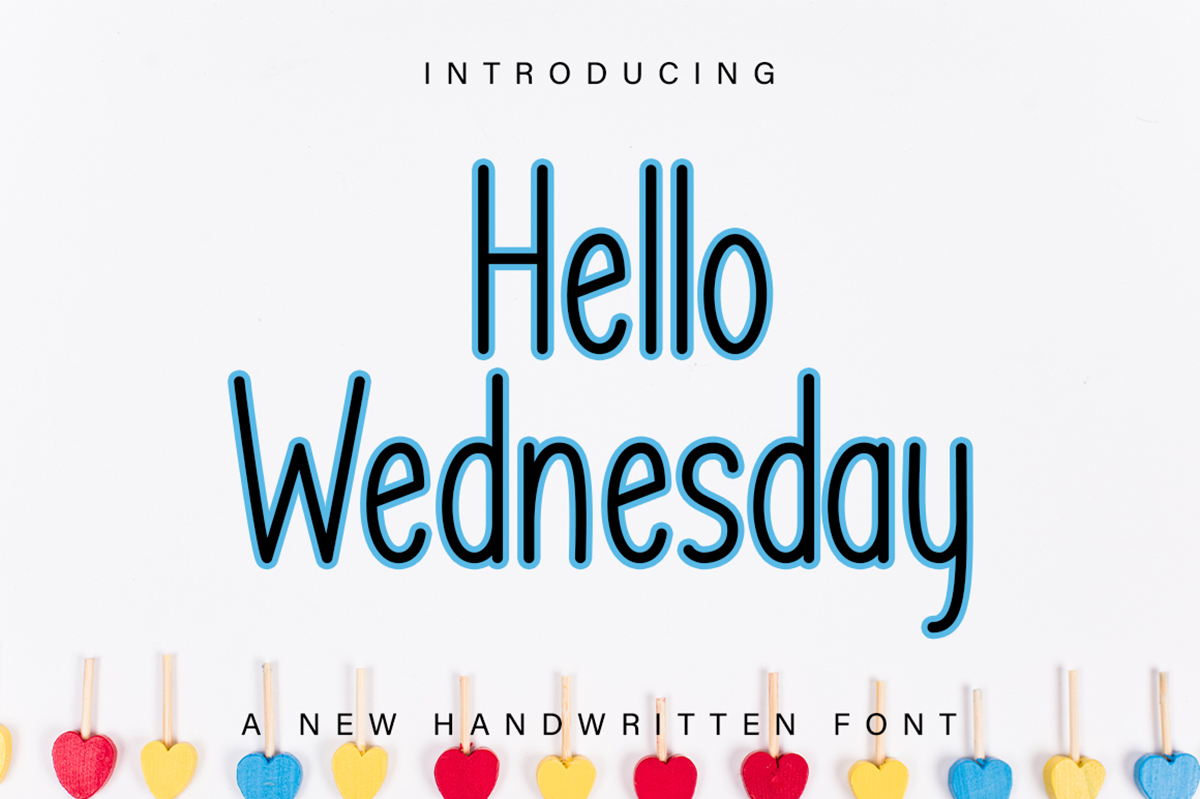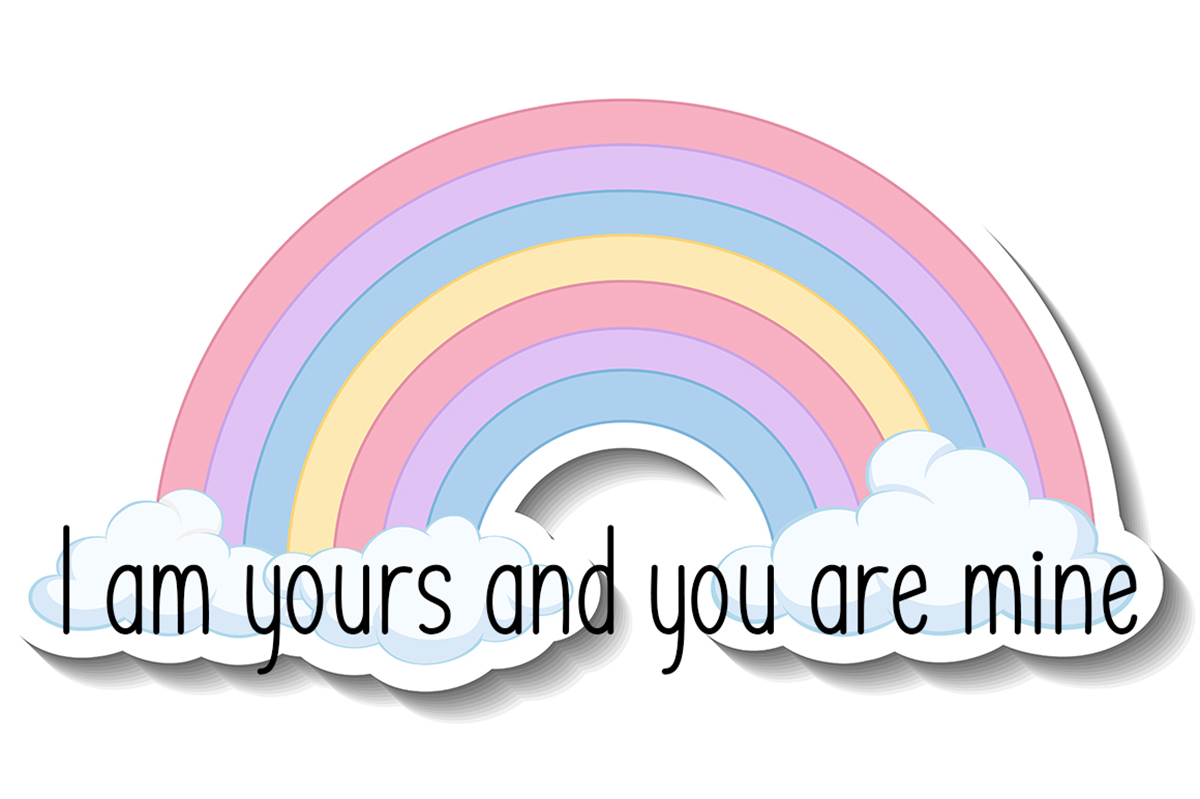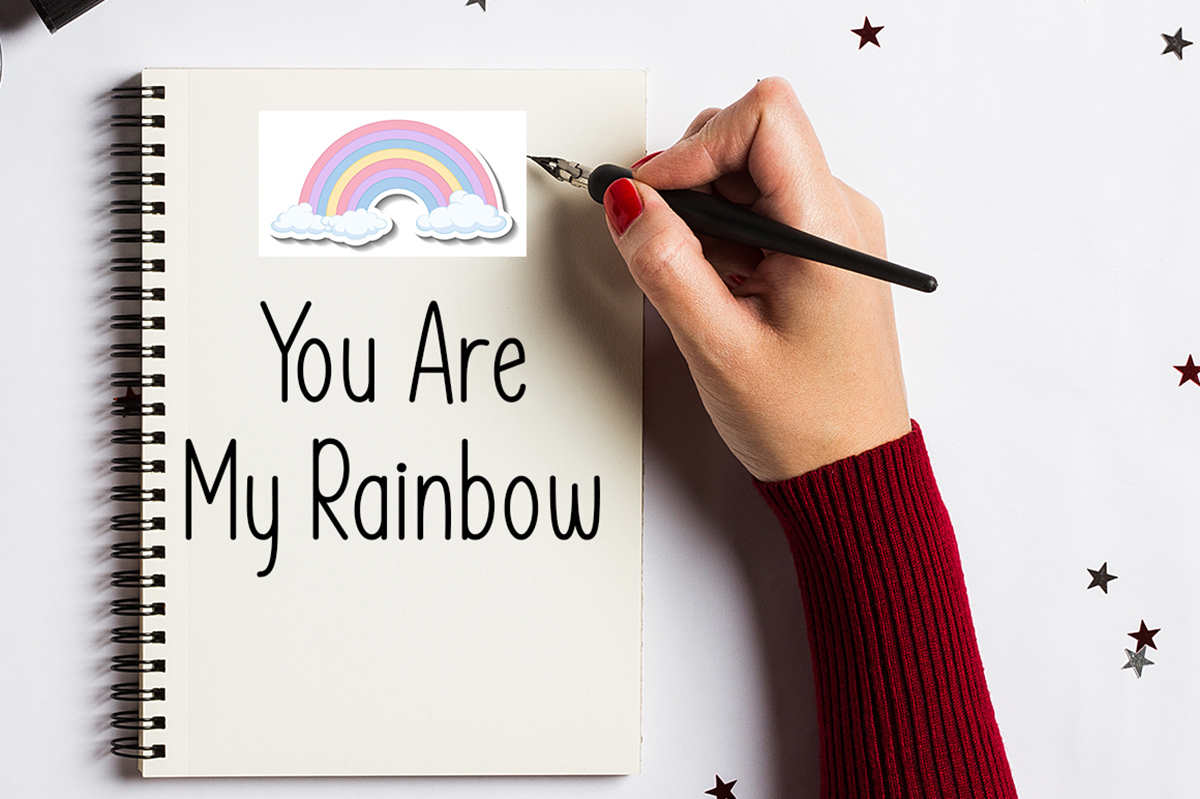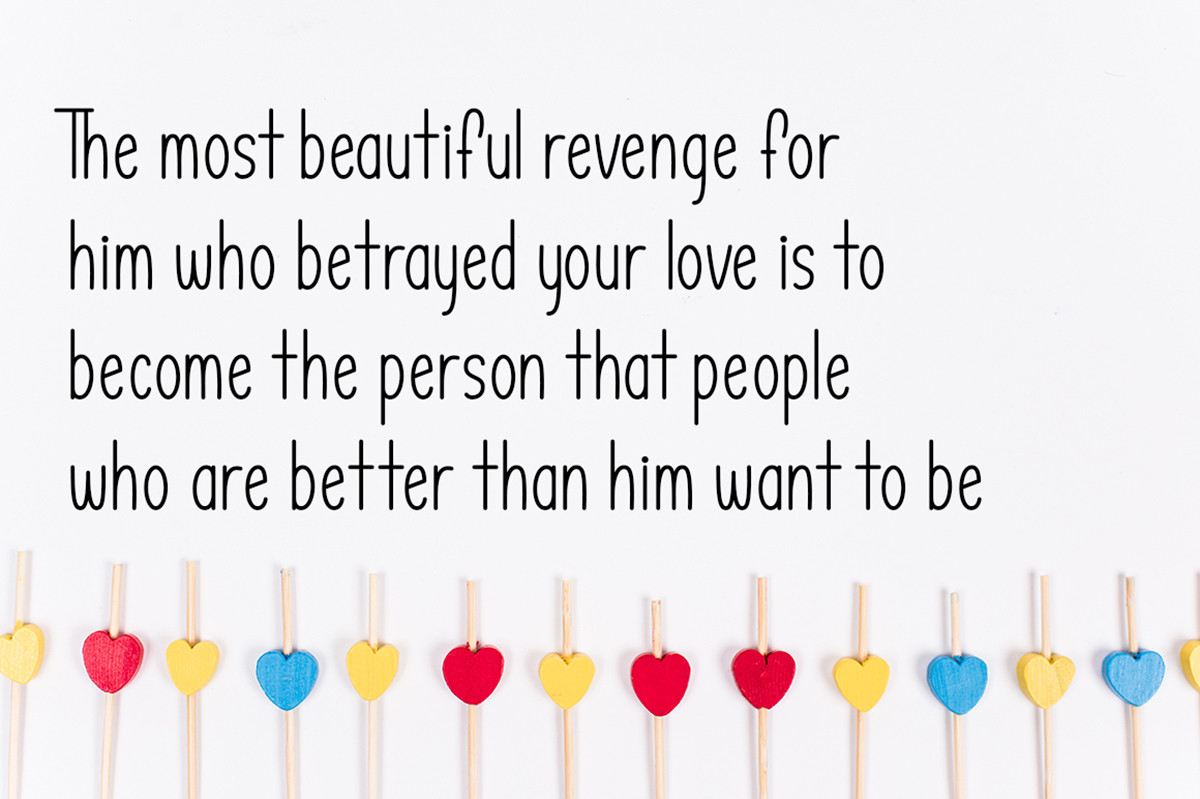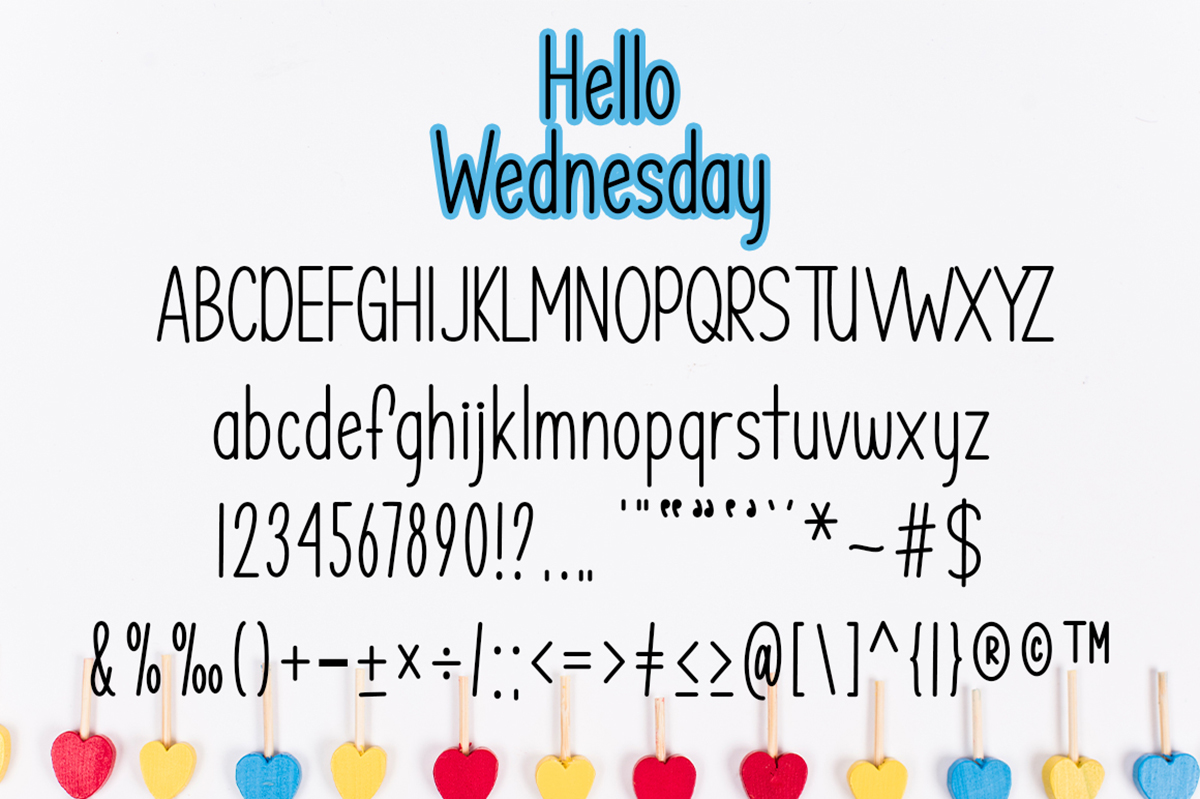
Hello Wednesday Free Font
Hello Wednesday Free Font is a minimalist and neat sans serif font. It can easily be matched to an incredibly large set of projects, so add it to your creative ideas and notice how it makes them stand out. This free typeface was designed by a talented DN Creative. If you like it don’t forget to check out the full version.